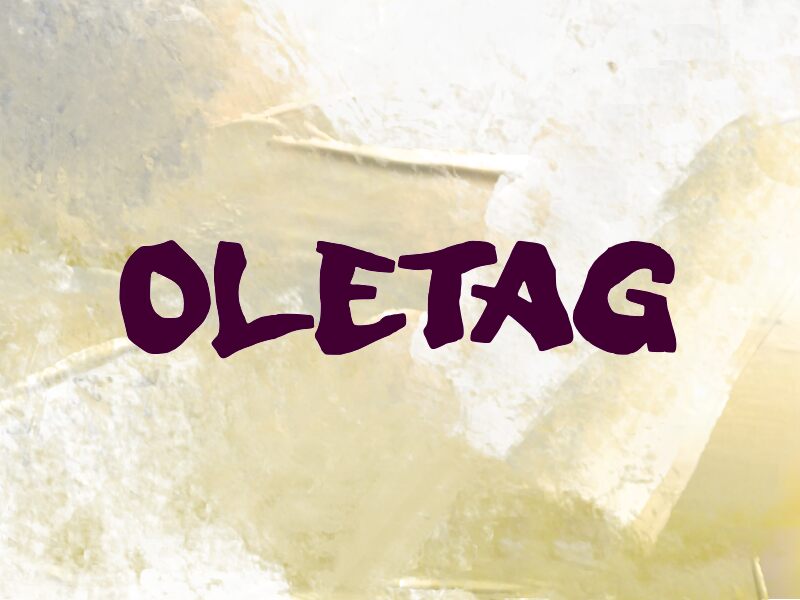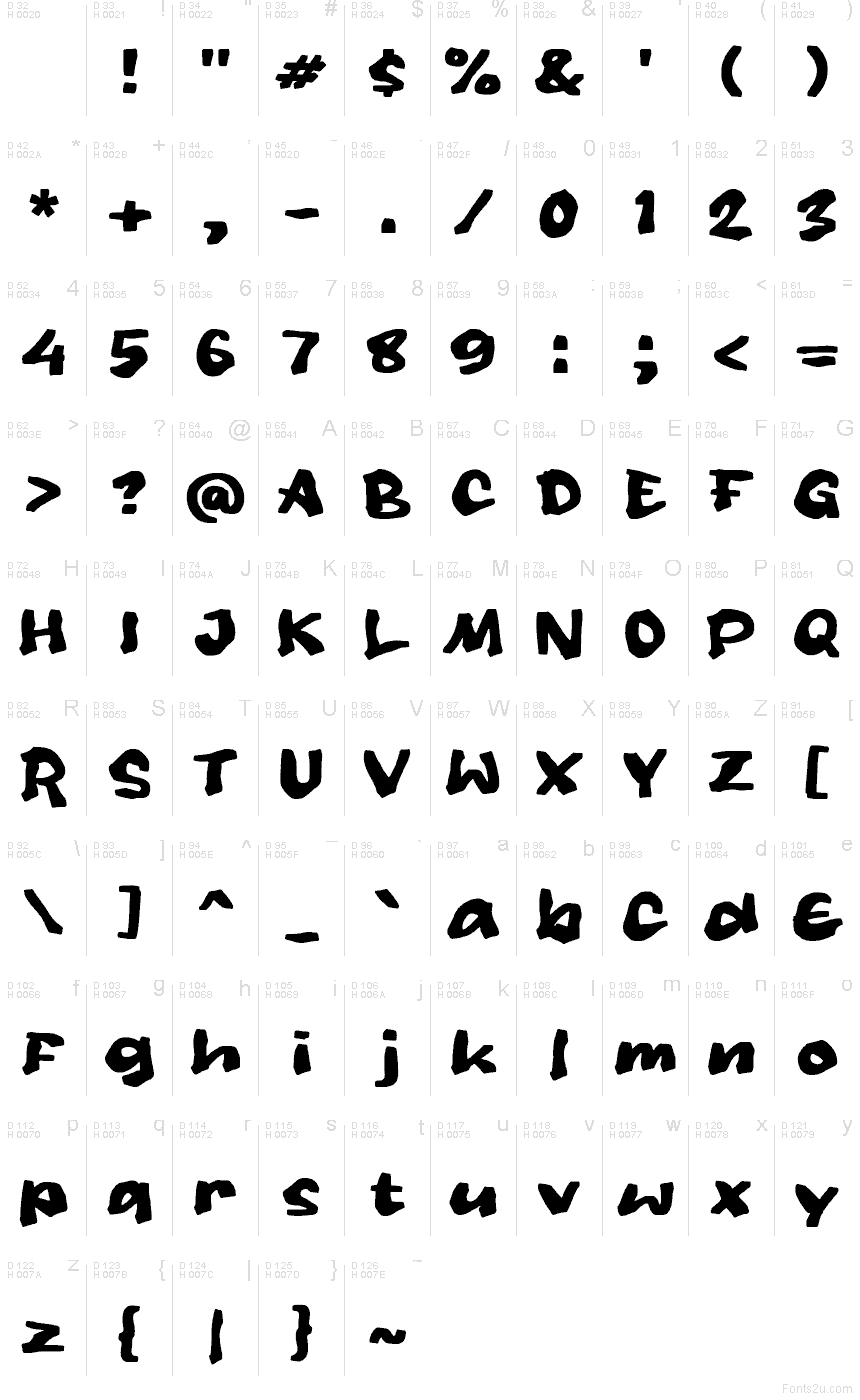
OLETAG by Wep is a free brush font defined by blunt, cut-paper silhouettes and uneven painted edges that keep every letter slightly off balance. The broad shapes and rough corners make the lettering feel stamped with a loaded brush rather than drawn into a smooth script.
That graphic mass gives short titles a strong role on posters, album art, streetwear graphics, video thumbnails, and event flyers. OLETAG also makes sense for packaging or social headers where the irregular brush texture can push a raw, handmade tone without drifting into neat calligraphy or generic marker lettering.
Oletag